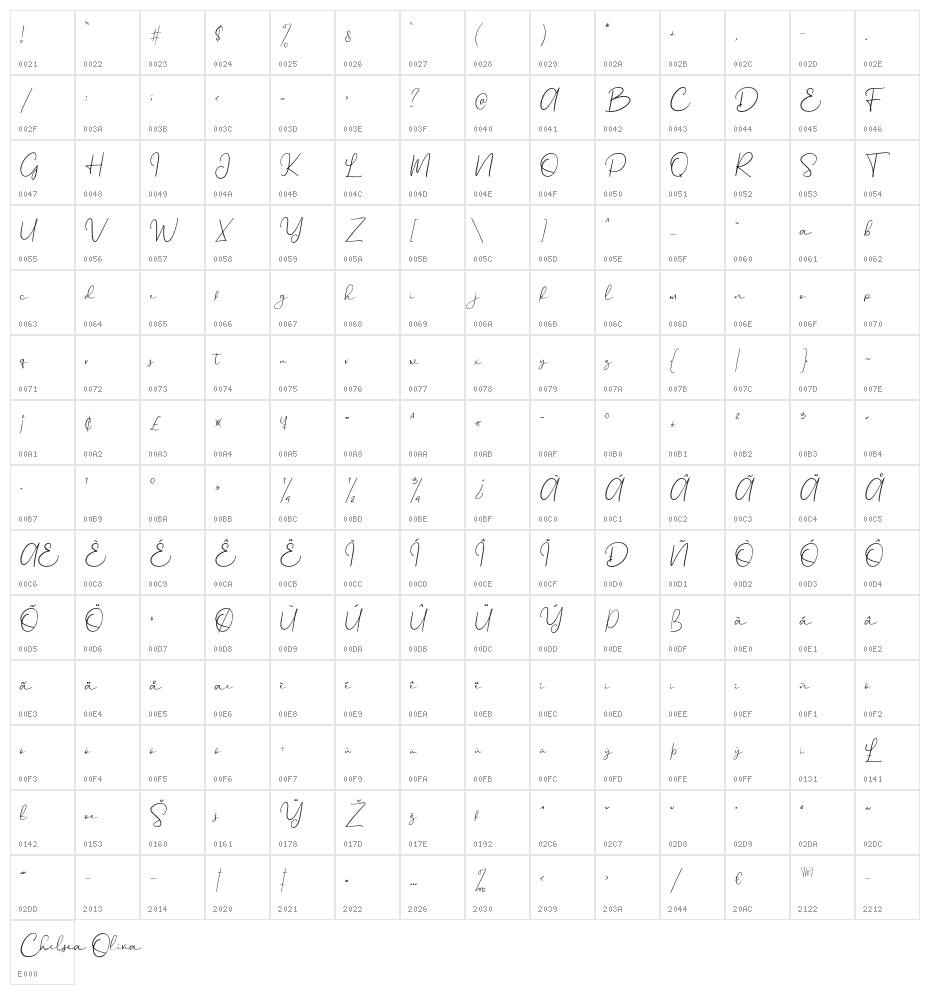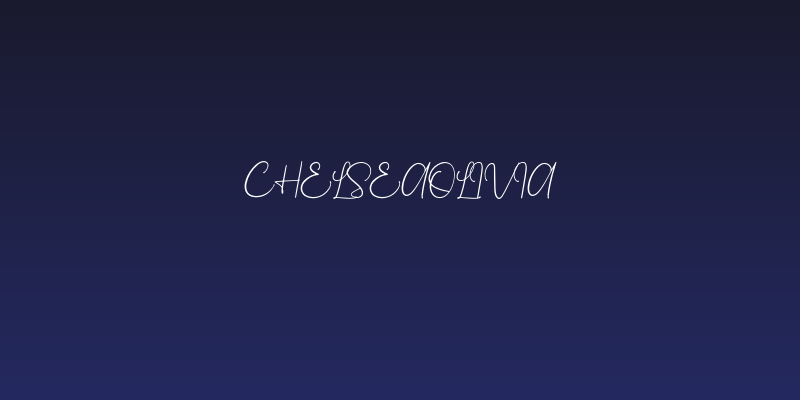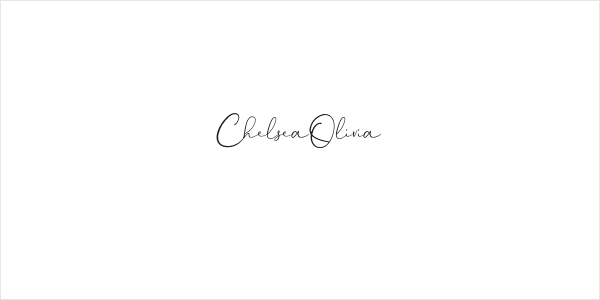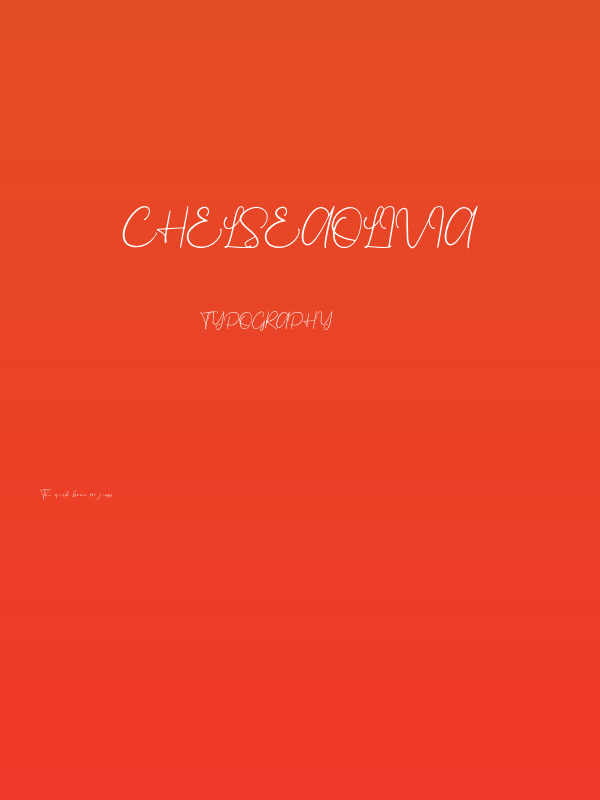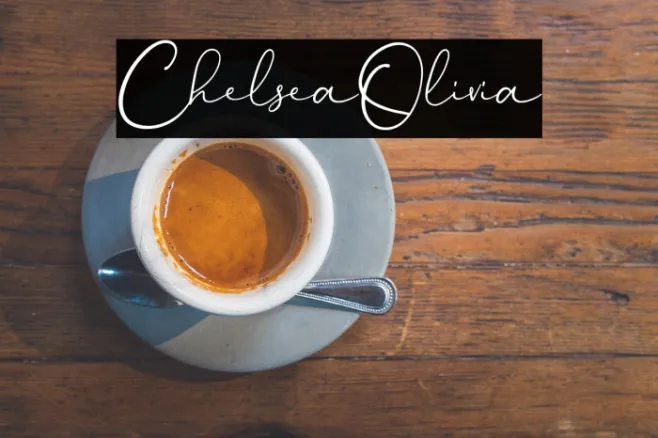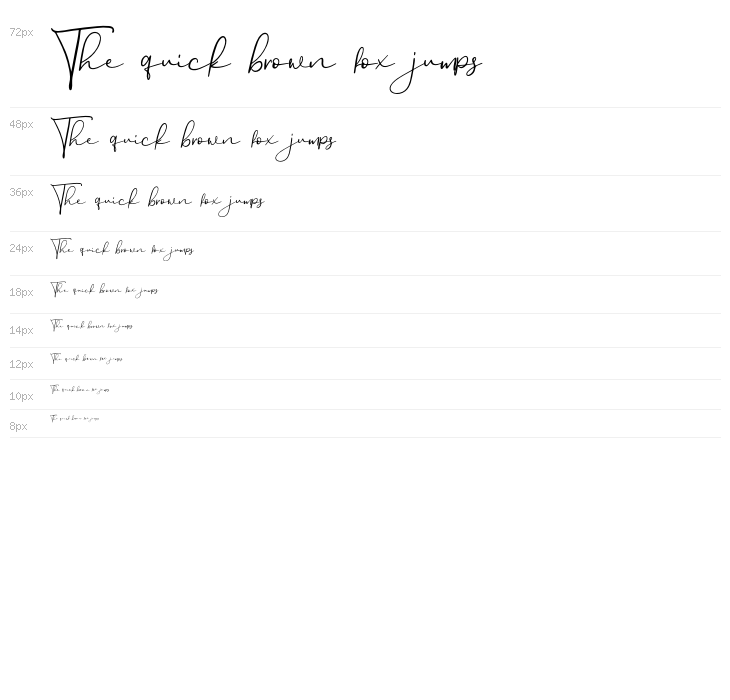
ChelseaOlivia Font
ChelseaOlivia Description
This font exhibits a delicate and elegant script style, characterized by its flowing and interconnected letterforms. The uppercase letters are bold and slightly slanted, giving a sense of movement and grace. The lowercase letters maintain a consistent style, with loops and curves that enhance the font's fluidity. The numerals and special characters are designed to match the overall aesthetic, featuring similar curves and lines. This font is well-suited for projects that require a touch of sophistication and charm, such as invitations, branding, and decorative text.
| Proposed Projects | Ideal for wedding invitations, elegant branding, greeting cards, and decorative headings. |